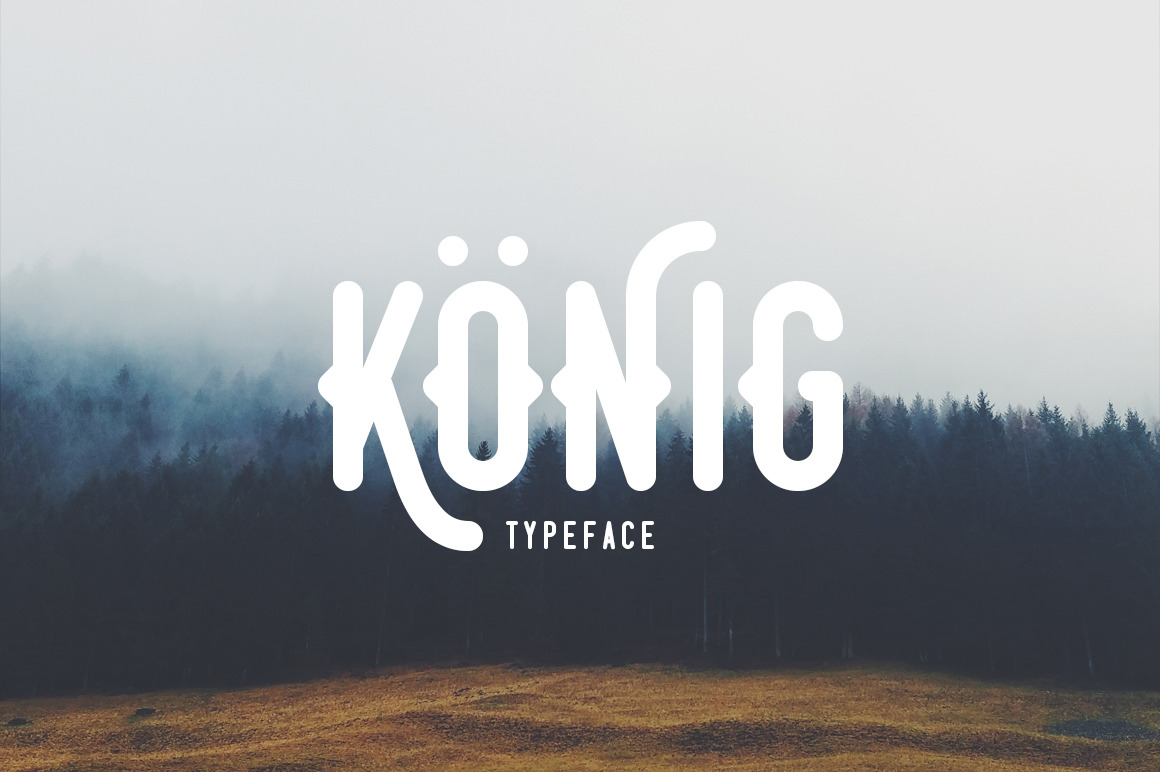
Konig Typeface
König Typeface
A handcrafted vintage display typeface that is strong and bold. It features four styles alternatives and international characters.